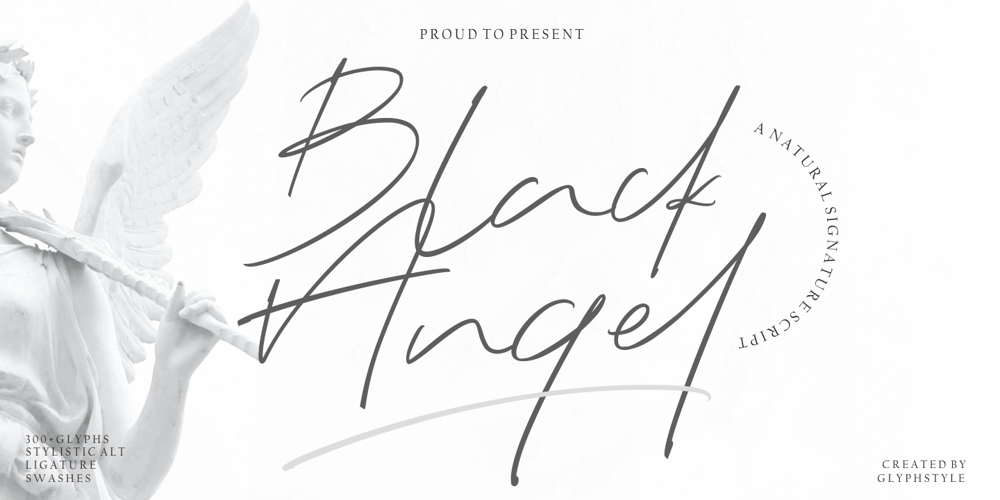
Black Angel Font Family was designed by Dimas Ardhi and published by GlyphStyle. Black Angel contains 1 styles and family package options. Black Angel is signature text with natural style and flow. Black Angel is perfect for branding projects, logos, wedding designs, social media posts, advertisements, product packaging, product designs, labels, photography, watermarks, invitations, stationery, and any project that requires a sense of handwritten signature.Font features: Uppercase Lowercase Numerals & Punctuation Stylistic alternates Ligatures Swashes Multi-language Support